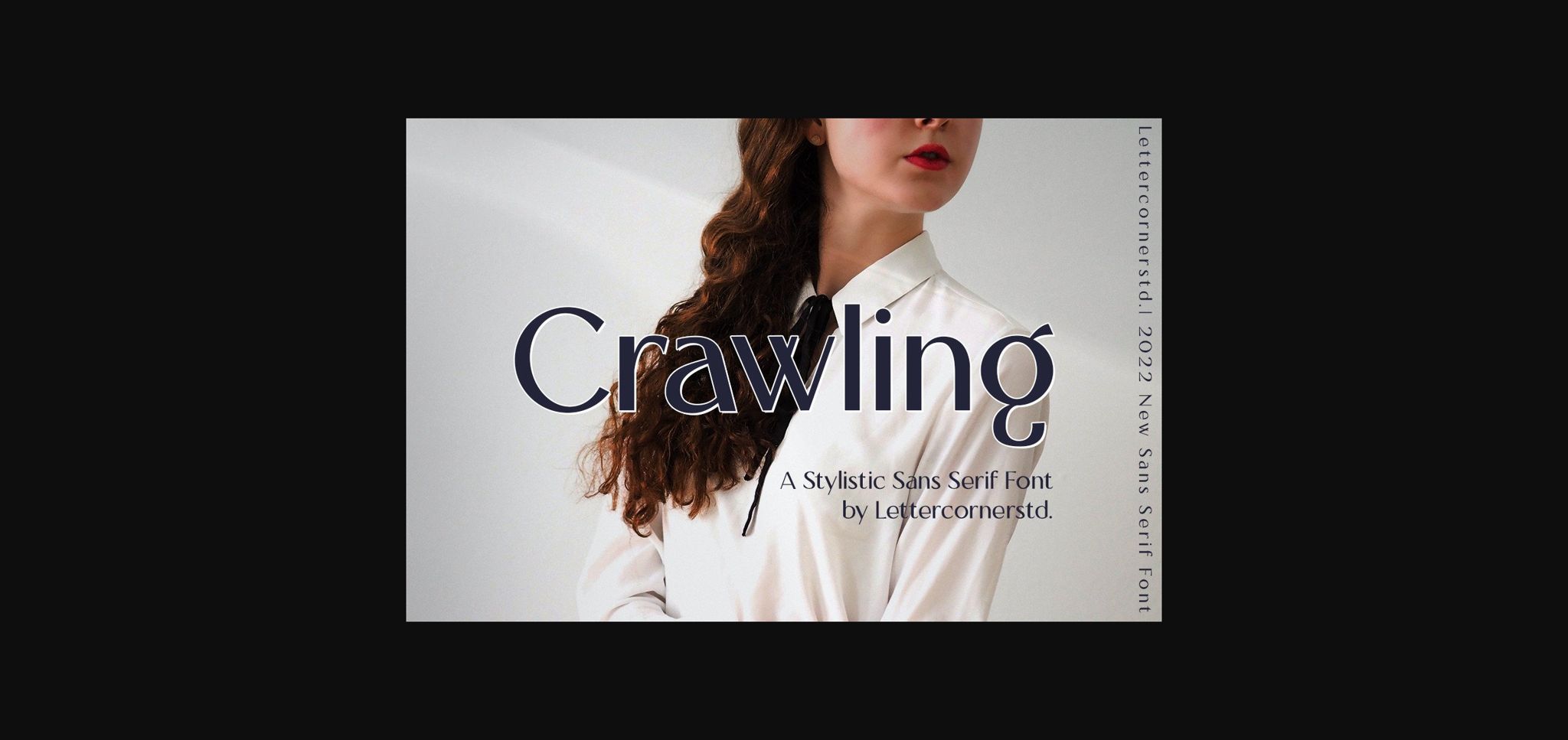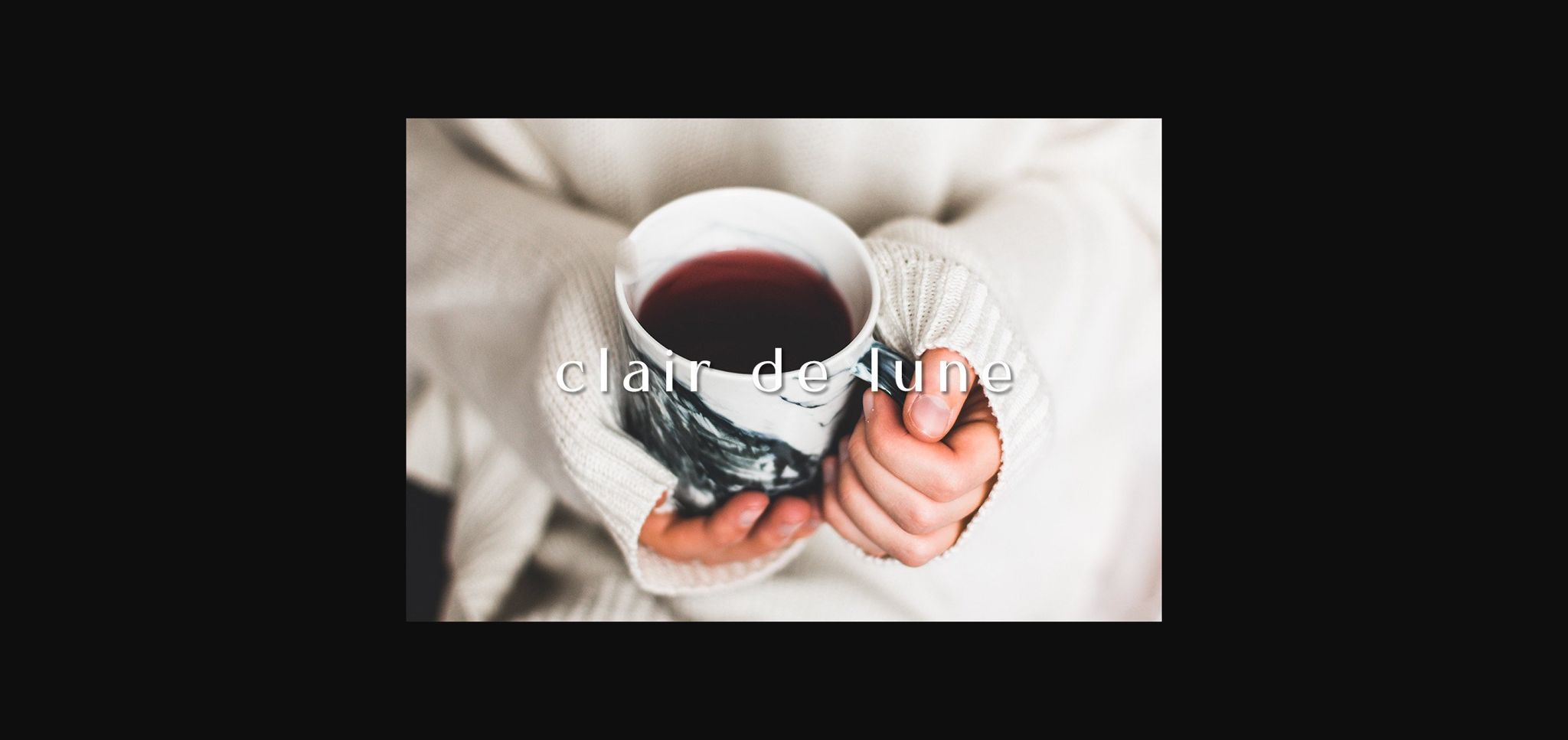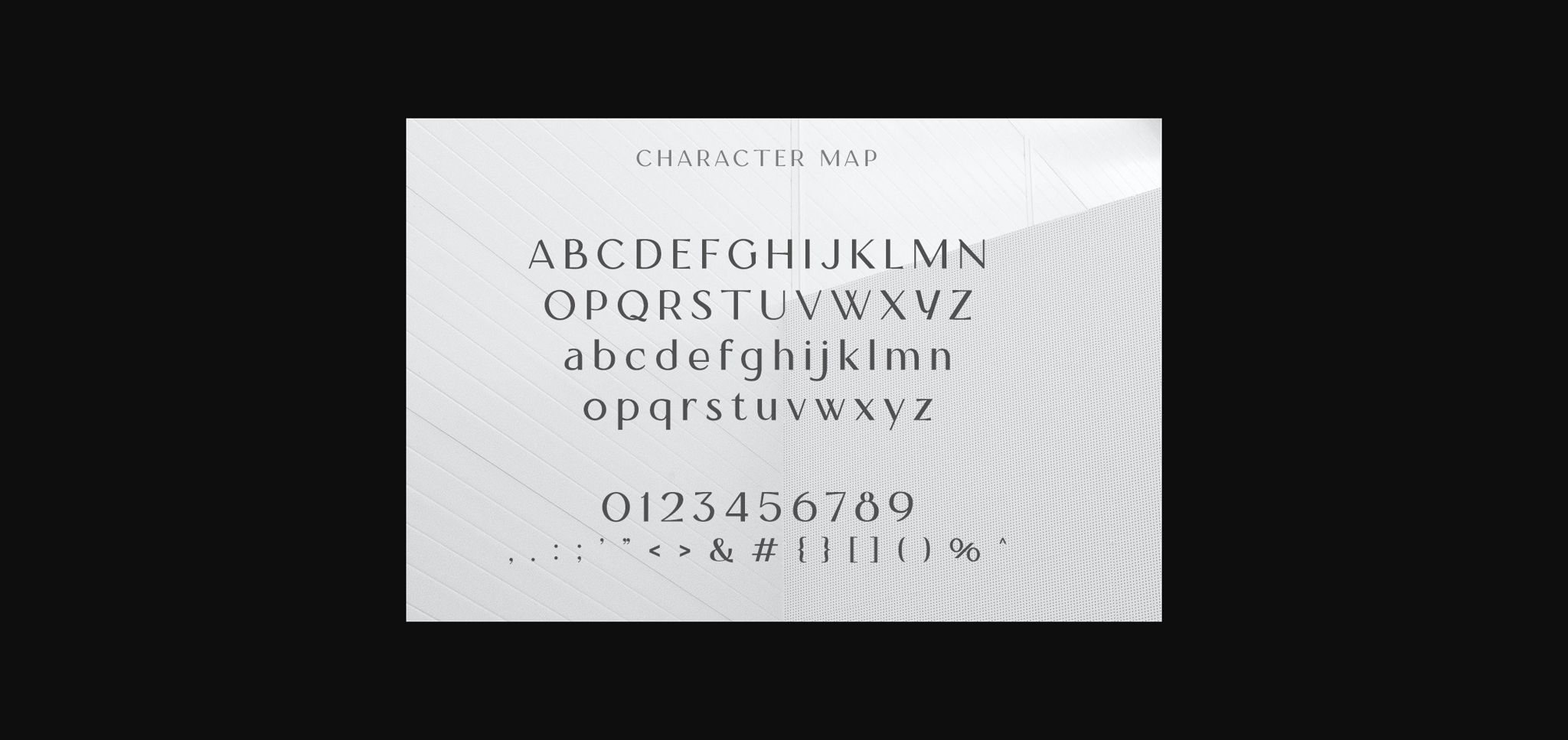
About Crawling Font
Crawling is a modern and chic serif typeface, best used as a display for headings, logos, branding, magazines, product packaging, and invitations. Crawling comes with clean lines and smooth curves giving any project an extra touch of class.